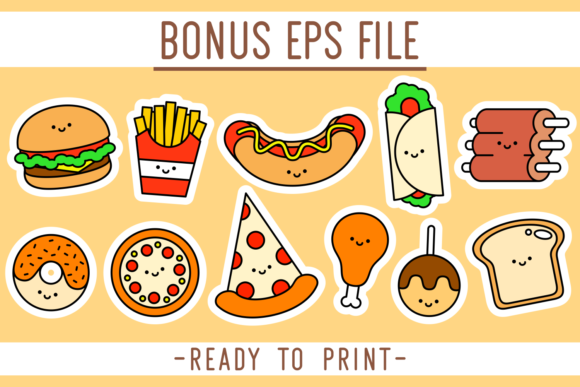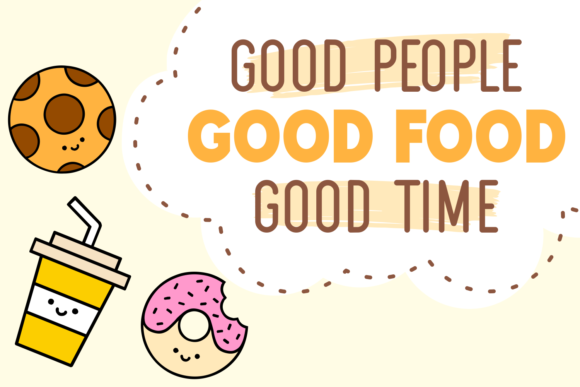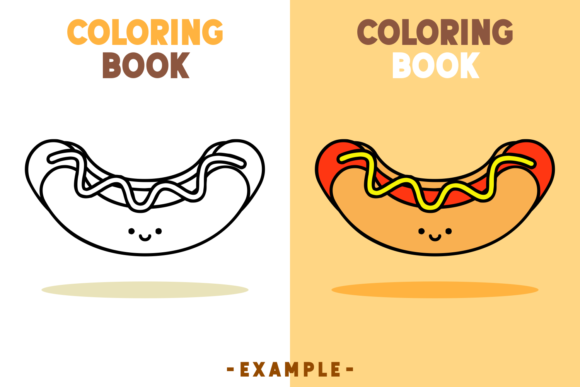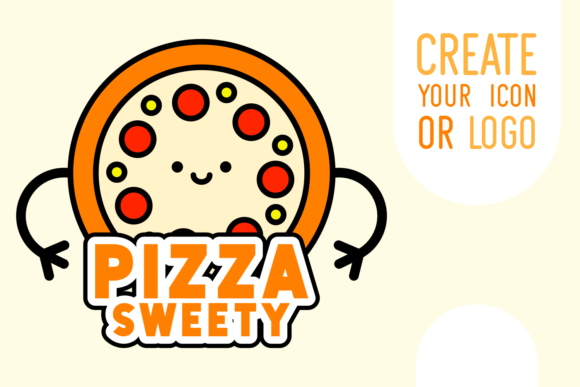
Cute Food Font: The Deliciously Versatile Dingbats Font for Designers and Crafters
Are you a designer or crafter looking for a unique and versatile font to elevate your creations? Look no further than Cute Food Font, an incredibly useful and original dingbats font that’s sure to become a staple in your font library. With its adorable food-themed icons and symbols, Cute Food Font is the perfect addition to any design project, regardless of the topic or theme.
What is Cute Food Font?
Cute Food Font is a dingbats font that features a wide range of food-themed icons and symbols, from sweet treats like ice cream and donuts to savory delights like pizza and sushi. The font is designed to be incredibly versatile, making it suitable for use in a variety of design projects, including crafting, scrapbooking, and commercial design.
Why You’ll Love Cute Food Font
So, what makes Cute Food Font so special? Here are just a few reasons why designers and crafters are going to love this font:
- Unique and Original: Cute Food Font is an entirely original dingbats font that’s unlike anything you’ve seen before. Its unique food-themed icons and symbols will add a touch of personality and whimsy to any design project.
- Versatile: Whether you’re designing a craft project, scrapbooking page, or commercial product, Cute Food Font is the perfect choice. Its versatility makes it suitable for use in a wide range of design applications.
- Easily Scalable: Cute Food Font is designed to be easily scalable, making it perfect for use in projects of all sizes. Whether you’re creating a tiny icon or a large sign, Cute Food Font will look great.
Ways to Use Cute Food Font
So, how can you use Cute Food Font in your designs? Here are just a few ideas to get you started:
- Crafting: Use Cute Food Font to add a touch of personality to your craft projects, such as scrapbooking pages, cards, and gift tags.
- Commercial Design: Use Cute Food Font to create eye-catching packaging, signage, and advertising materials for food-related businesses.
- Social Media Graphics: Use Cute Food Font to create fun and engaging social media graphics, such as Instagram posts and Facebook graphics.
- Party Decorations: Use Cute Food Font to create adorable party decorations, such as banners, garlands, and cupcake toppers.
- Experiment with Different Sizes: Cute Food Font is designed to be easily scalable, so don’t be afraid to experiment with different sizes to find the one that works best for your project.
- Combine with Other Fonts: Cute Food Font pairs well with a wide range of fonts, so feel free to get creative and combine it with other fonts to create a unique look.
- Use in Combination with Images: Cute Food Font looks great when used in combination with images, so consider using it to add a touch of personality to your photos and illustrations.
In conclusion, Cute Food Font is an incredibly useful and original dingbats font that’s sure to become a staple in your font library. With its adorable food-themed icons and symbols, Cute Food Font is the perfect addition to any design project, regardless of the topic or theme. Whether you’re a designer or crafter, Cute Food Font is a must-have font that’s sure to inspire your creativity and take your designs to the next level.